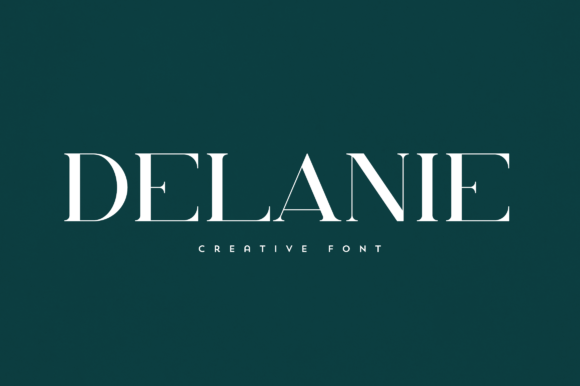
Unleash the Elegance: Delanie Font - The Epitome of Sophistication for Your Creative Endeavors
In a world clamoring for distinction, Delanie Font emerges as a symphony of sophistication, an ode to timeless elegance. Crafted with meticulous precision, this serif font transcends the mundane, transforming your designs into captivating masterpieces.
Picture your wedding invitations adorned with the graceful curves of Delanie, exuding an aura of romance and refinement. Envision your branding projects imbued with a touch of timeless charm, leaving an indelible mark on your clientele. Delanie's versatility extends to home-ware designs, product packaging, and magazine headers, adding a touch of sophistication to any creative pursuit.
With Delanie, your words dance across the page, carrying the weight of history and the promise of a brighter future. Its timeless design evokes a sense of nostalgia, while its modern sensibilities keep it firmly rooted in the present. Experience the joy of creating logos that speak volumes, headlines that command attention, and plain text that captivates with its understated elegance.
Delanie is not merely a font; it is an artistic expression, a tool that unlocks the door to extraordinary design possibilities. Its versatility knows no bounds, allowing you to effortlessly elevate your projects to new heights of creativity. Dare to embrace the beauty of Delanie, and watch as your designs blossom into works of art.